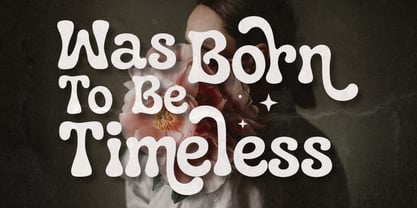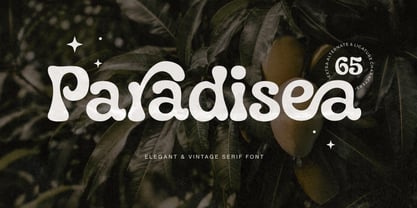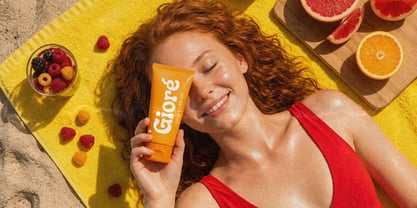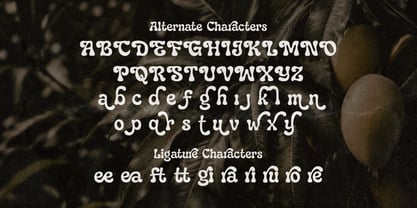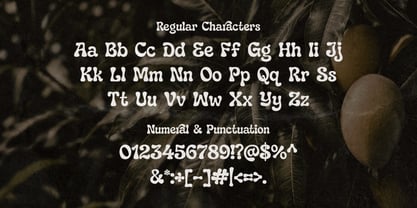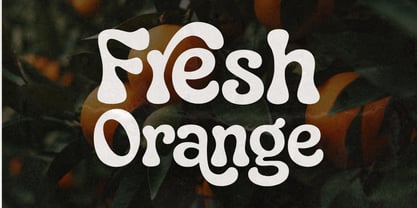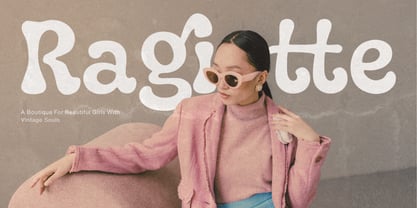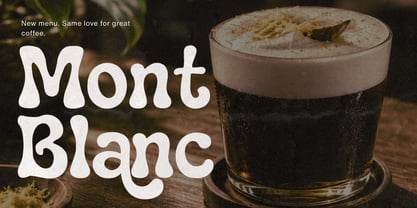
Paradisea
Paradisea is an elegant vintage serif font created for designers who love refined typography, nostalgic aesthetics, and expressive editorial lettering. With its soft organic curves, decorative character details, and graceful serif structure, Paradisea brings a sophisticated vintage atmosphere to every word. The design feels timeless yet contemporary, making it a beautiful choice for branding, editorial layouts, fashion projects, packaging, and luxury-inspired creative work.
Inspired by vintage botanical posters, old-world print design, elegant magazine typography, and nostalgic visual identities, Paradisea combines classic serif foundations with a more expressive and artistic personality. Its letterforms are carefully shaped to create a warm, stylish, and distinctive appearance. The result is a serif font that feels refined without becoming overly formal.
Paradisea is designed for creators who want typography with character. Rather than relying on a rigid traditional serif structure, the font introduces a softer and more organic visual rhythm. This makes it especially effective for projects that require an elegant but approachable atmosphere. Use it for a luxury fashion brand, a boutique identity, a beauty label, a vintage-inspired restaurant, or an editorial campaign that needs a memorable typographic voice.
The font includes uppercase characters, numbers, and punctuation, giving you the essential character set for creating complete headlines, names, titles, labels, and branding compositions. It also features multilingual support, allowing Paradisea to be used across a wide range of international design projects.
One of the key features of Paradisea is its collection of Stylistic Alternates. These alternate characters give you the ability to customize your typography and create a more unique visual result. Swap selected characters to discover different shapes, add variation to repeated letters, or create a more decorative and expressive wordmark. This feature is especially useful for logo design, branding, and display typography where originality matters.
Paradisea also includes Ligatures that help create a more natural and visually connected typographic flow. The ligature combinations add subtle typographic detail and can enhance the elegance of words and phrases. Together with the stylistic alternates, these OpenType features provide more creative freedom and help you build typography that feels carefully crafted.
Paradisea is perfect for a wide range of design applications, including:
• Luxury Branding
• Fashion Logos
• Beauty Branding
• Editorial Design
• Magazine Covers
• Boutique Branding
• Product Packaging
• Wedding Invitations
• Stationery
• Book Covers
• Album Artwork
• Social Media Graphics
• Vintage Posters
• Restaurant Branding
• Cafe Branding
• Cosmetic Packaging
• Lifestyle Branding
• Art Direction
• Creative Headlines
• Logo Design
The font works beautifully in both minimalist and highly decorative compositions. Use it in a clean monochrome layout for a timeless editorial appearance, or combine it with botanical illustrations, vintage textures, muted colors, and ornamental details for a more nostalgic aesthetic.
Paradisea is especially suitable for fashion and beauty projects because of its graceful visual character. The elegant serif structure gives brands a refined and premium impression, while the organic curves add a sense of warmth and individuality. It can be used for perfume labels, skincare packaging, boutique logos, fashion campaigns, and luxury product presentations.
For editorial design, Paradisea creates beautiful headlines and display typography. Its distinctive letterforms help titles stand out while maintaining a sophisticated reading experience. Pair it with a clean sans serif for supporting text to create a stylish contrast between classic elegance and modern simplicity.
The stylistic alternates are also ideal for creating custom wordmarks. Designers can experiment with different letter combinations to achieve a more exclusive and handcrafted look. This makes Paradisea a strong choice for creative studios, branding designers, and entrepreneurs looking for a unique visual identity.
Paradisea is more than a traditional serif font. It is a carefully designed display serif with a vintage soul, elegant curves, and expressive typographic features. Every detail is created to help your words feel more memorable.
Whether you are designing a luxury logo, an editorial headline, a vintage poster, a fashion campaign, or an elegant packaging concept, Paradisea adds a refined and timeless character to your work.
Bring a touch of vintage elegance to your next project with Paradisea.